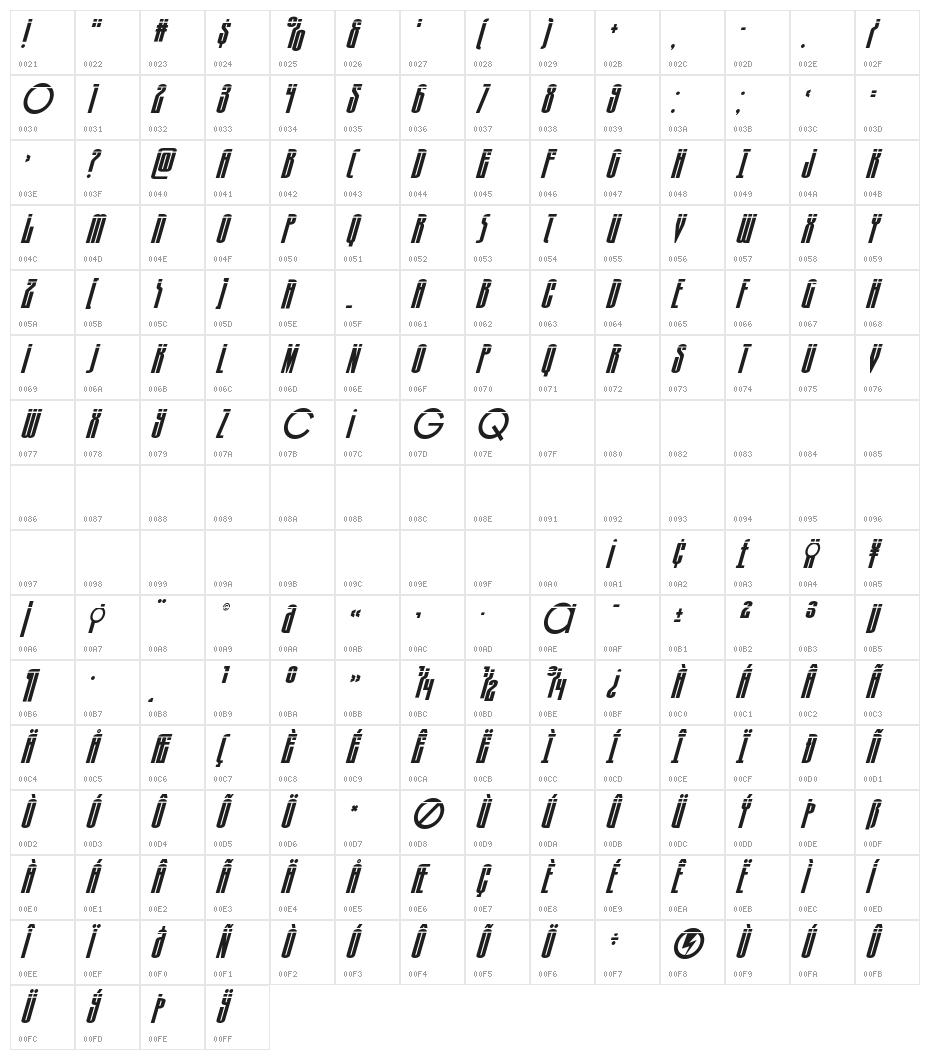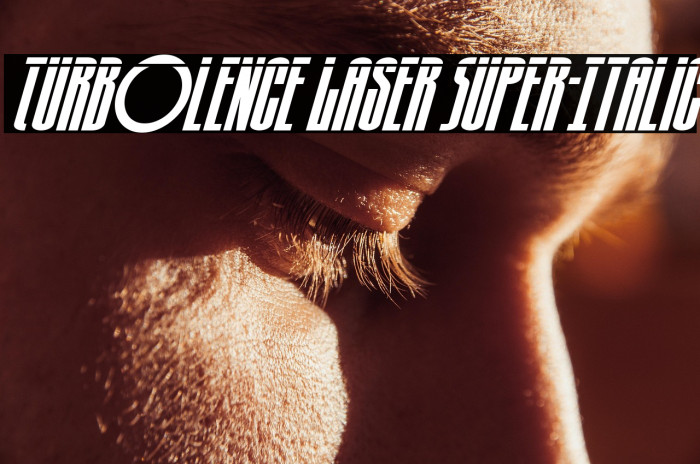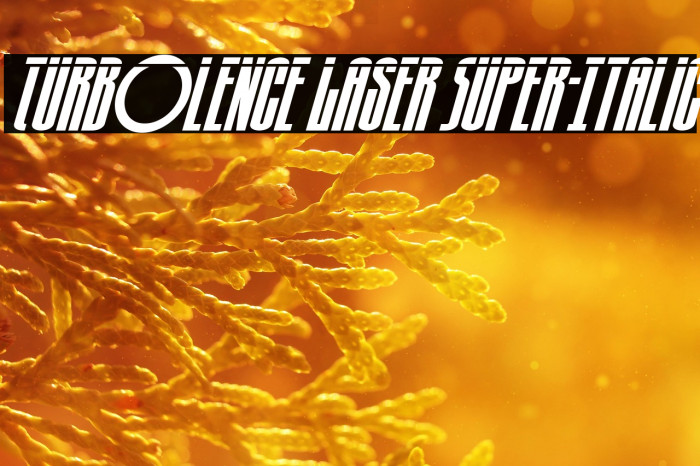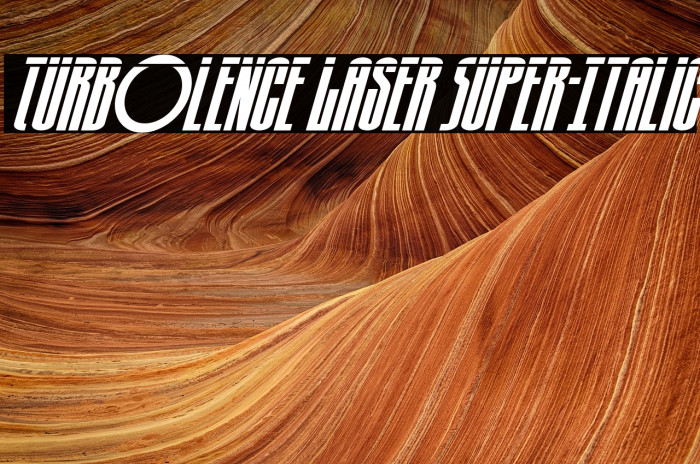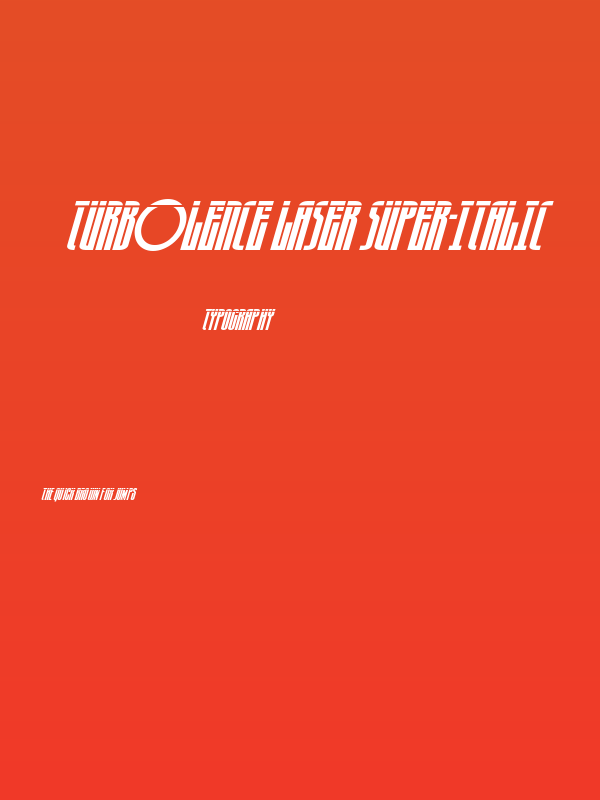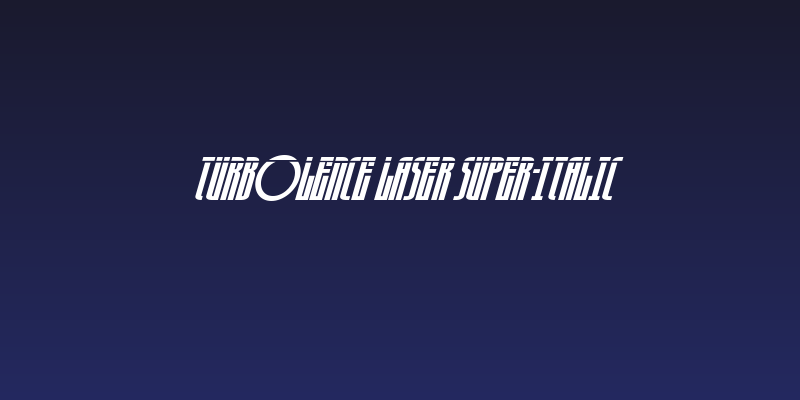
Turb0lence Laser Super-Italic Font
Turb0lence Laser Super-Italic Description
This dynamic and futuristic font features a bold, italicized style with sharp, angular lines and a distinct slant, creating a sense of motion and speed. The characters are tightly spaced, enhancing its compact and energetic appearance. The uppercase letters are particularly striking, with elongated forms that emphasize their verticality. The numbers and special characters maintain the same bold and slanted characteristics, ensuring consistency across all glyphs. This font is ideal for projects that require a modern, high-impact look, such as technology branding, sports team logos, or sci-fi themed designs.
Overall StyleFuturistic
Use CaseLogos, Headlines
Proposed ProjectsIdeal for technology branding, sports logos, sci-fi themes, and high-impact designs.